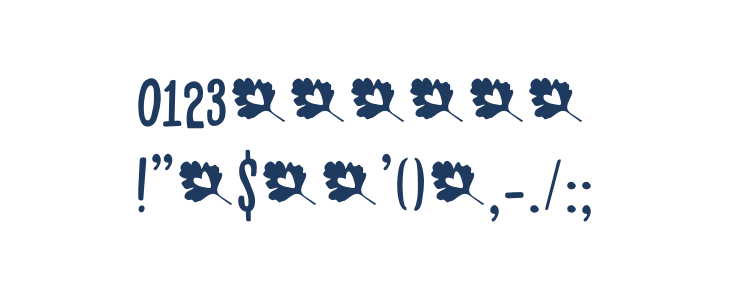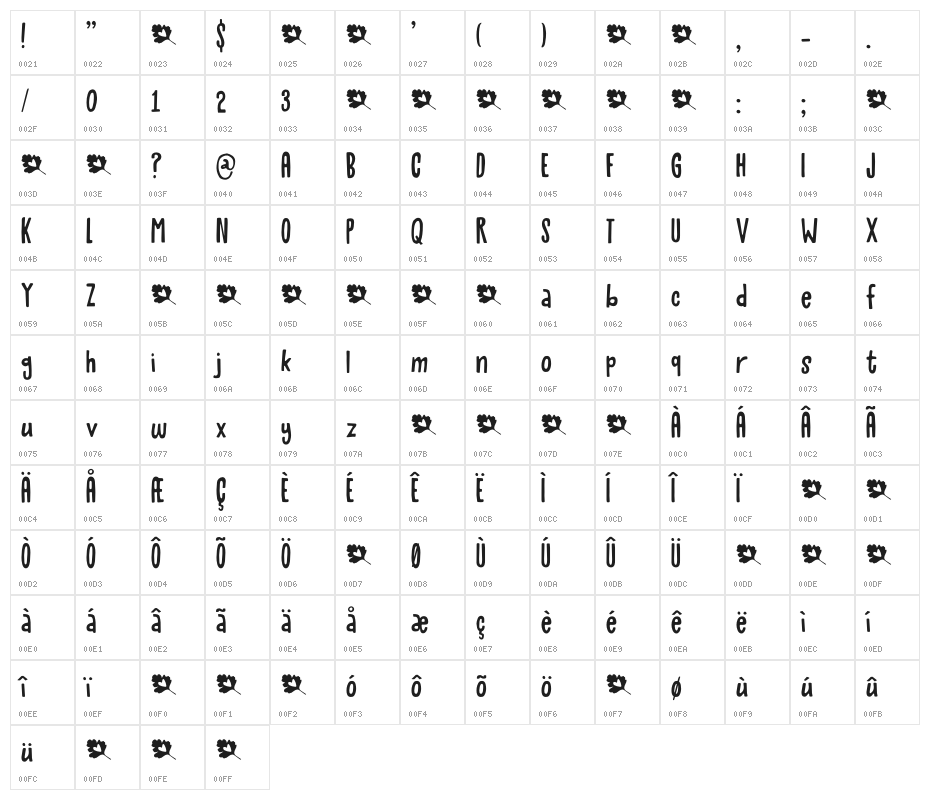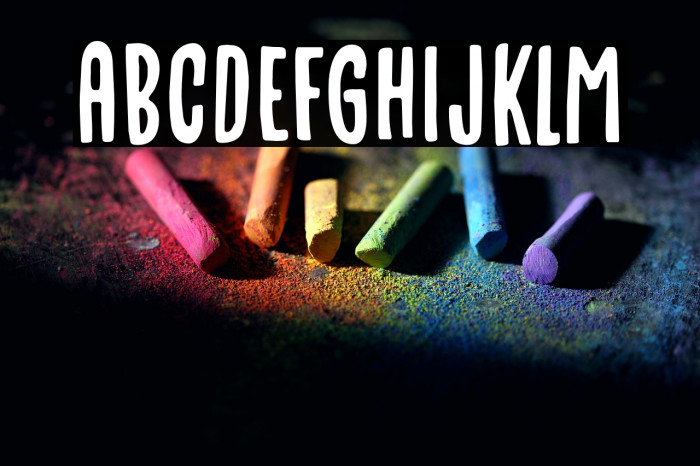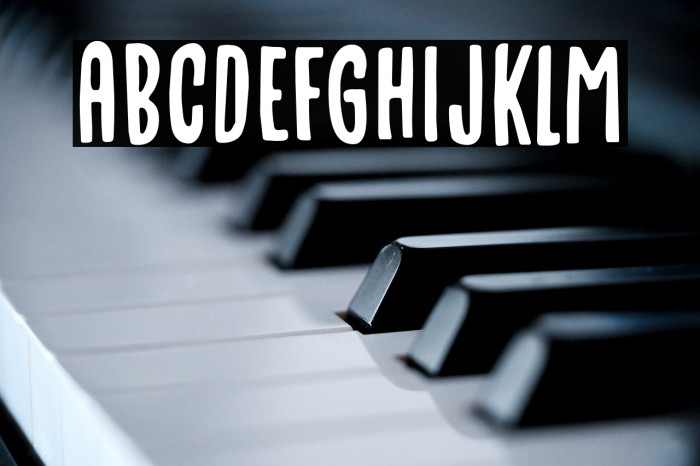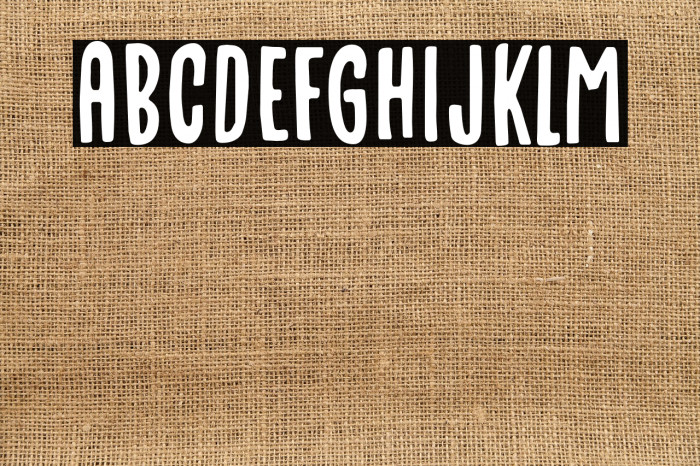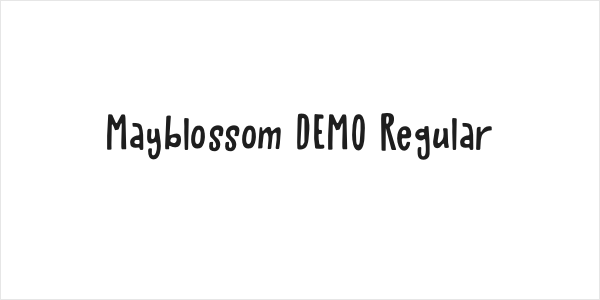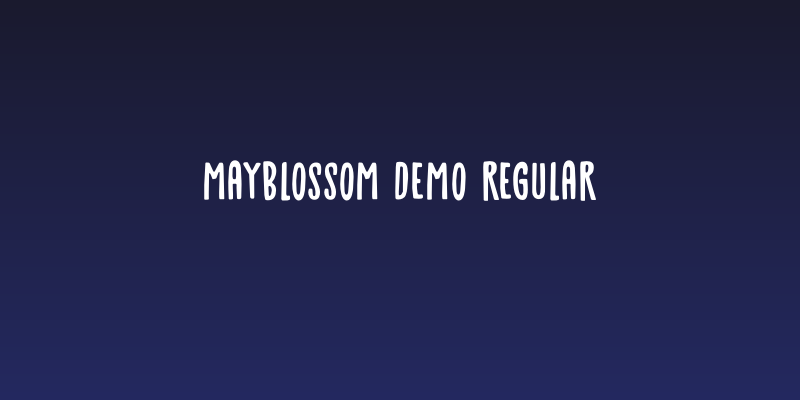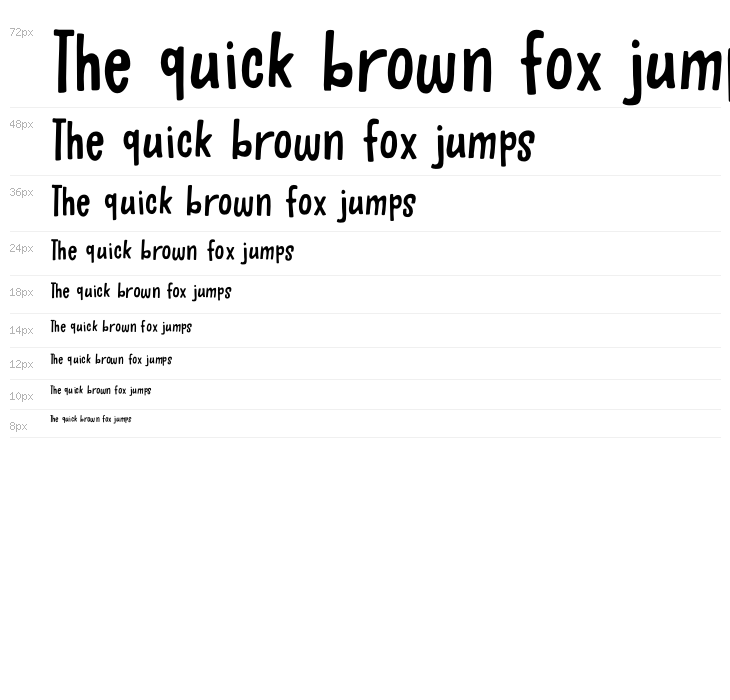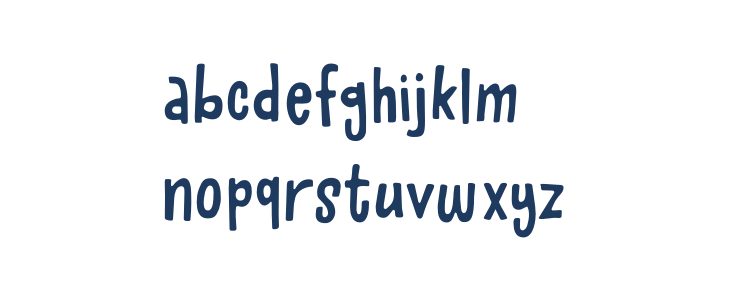
Mayblossom DEMO Regular Font
Mayblossom DEMO Regular Description
This playful and whimsical font features a hand-drawn style with a casual, friendly appearance. The letters are slightly irregular, giving them a charming and approachable feel. The uppercase letters are bold and rounded, while the lowercase letters maintain a consistent flow with a slightly narrower form. The numbers and special characters complement the overall style, adding to its versatility. This font's unique character is enhanced by its decorative elements, making it ideal for creative projects.
| Proposed Projects | Ideal for children's books, greeting cards, playful branding, and creative posters. |